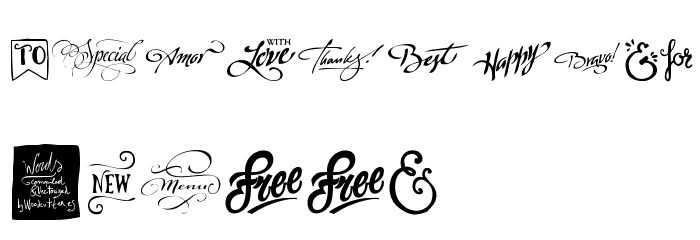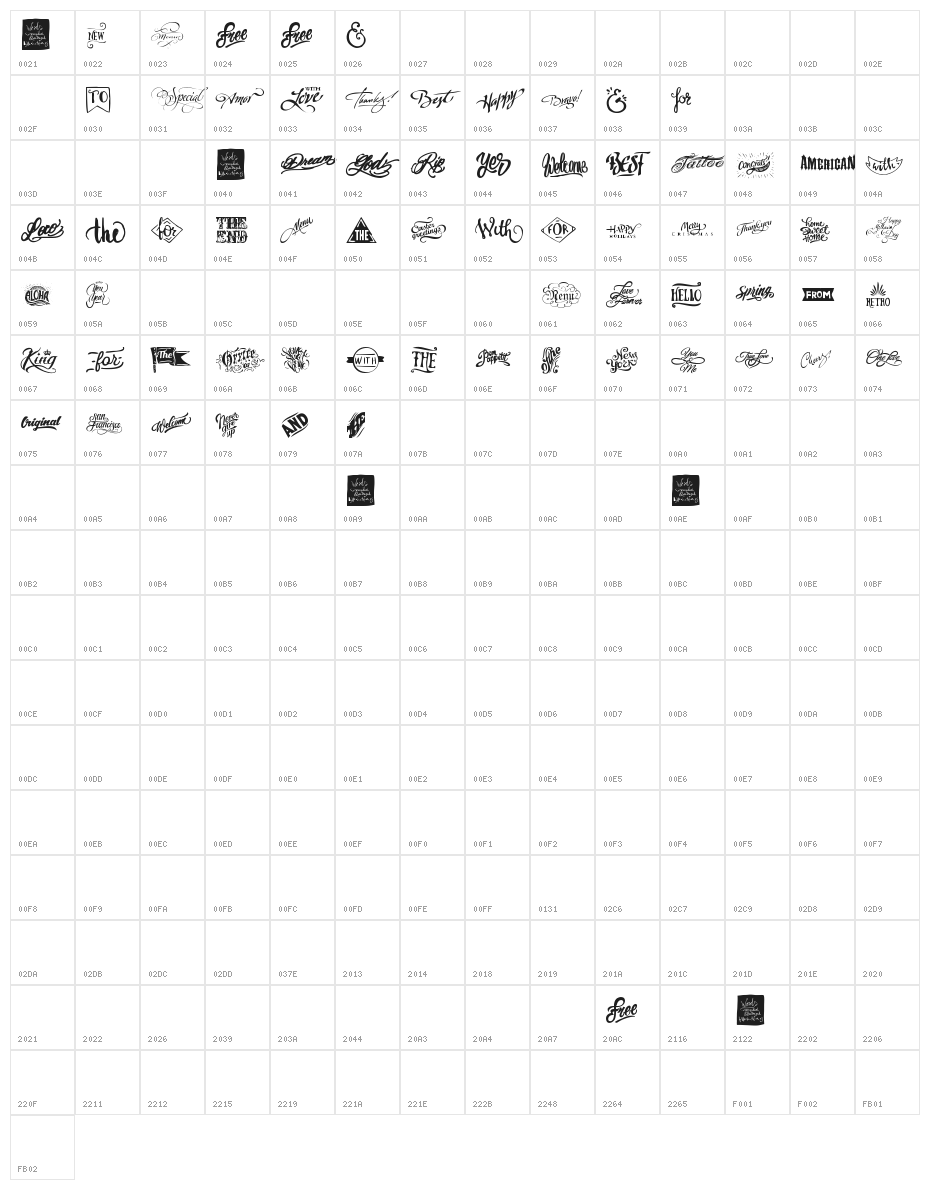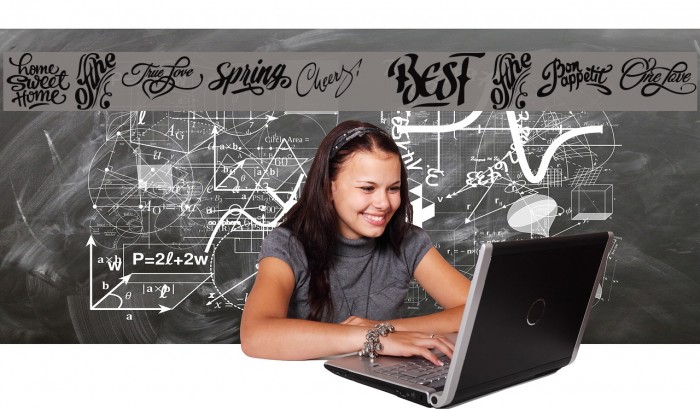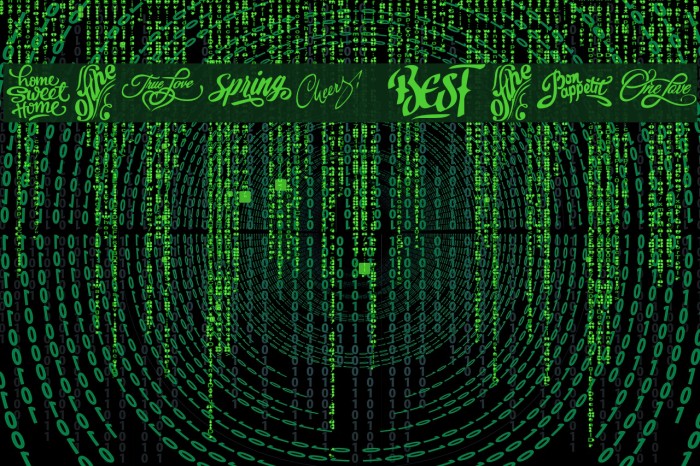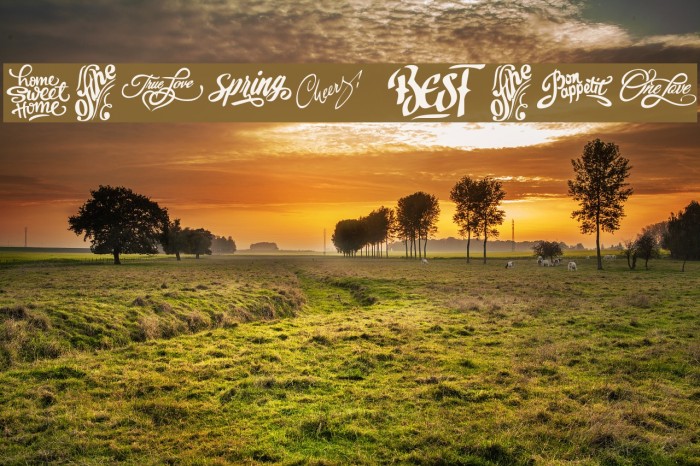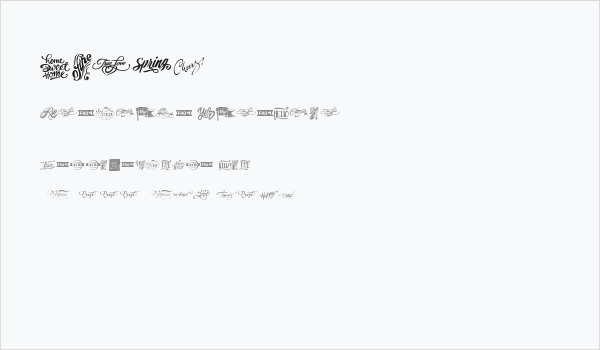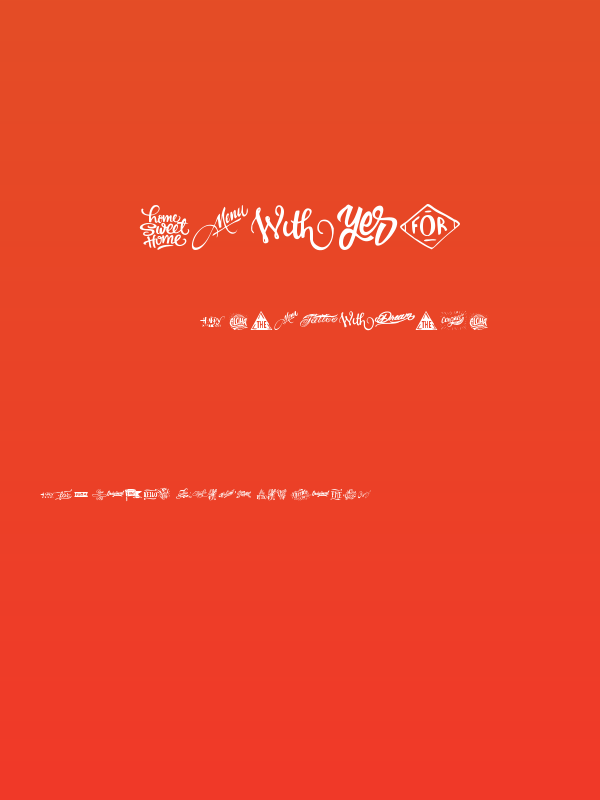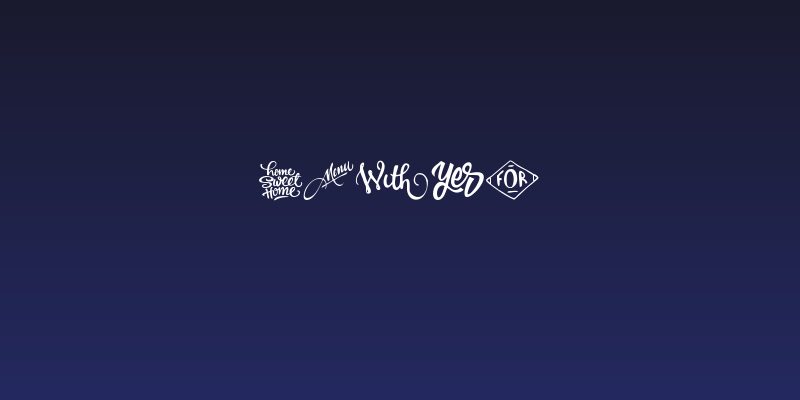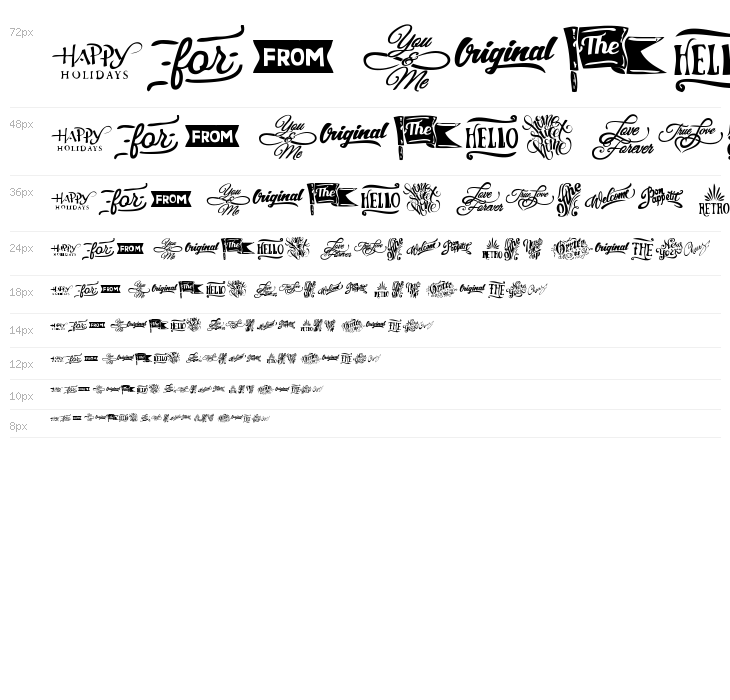
Words Font
Words Description
This collection of fonts showcases a variety of decorative and stylistic scripts, each with its own unique flair. The designs range from elegant and flowing cursive styles to bold and intricate lettering, often incorporating flourishes and embellishments. The fonts exhibit a high level of detail and creativity, making them suitable for artistic and expressive projects. The overall aesthetic is diverse, with some fonts leaning towards a vintage or retro feel, while others are more modern and edgy. The use of varying stroke weights and ornamental elements adds to the visual interest and complexity of the designs.
| Overall Style | Decorative, Artistic, Expressive |
| Use Case | Logos, Artistic designs, Greeting cards, Posters |
| Proposed Projects | Ideal for use in branding, logos, greeting cards, posters, and artistic designs where a distinctive and creative touch is desired. |